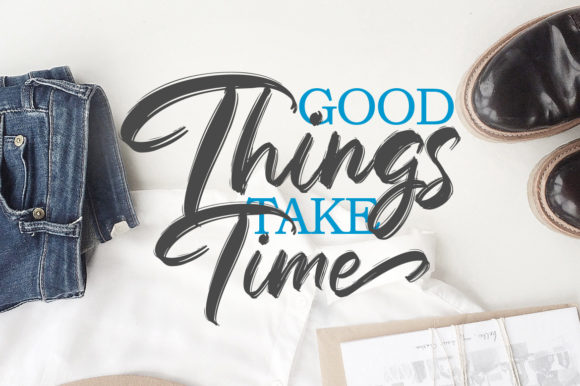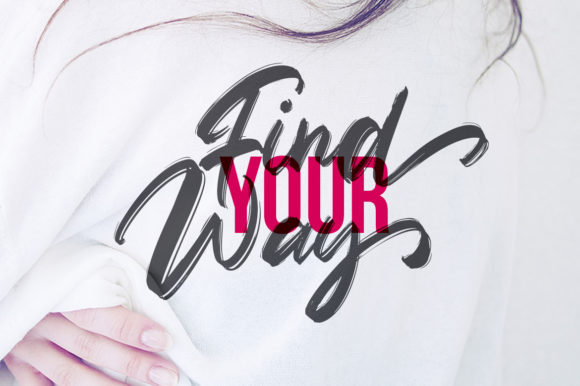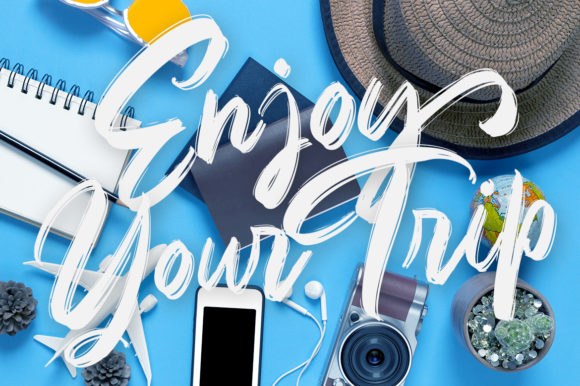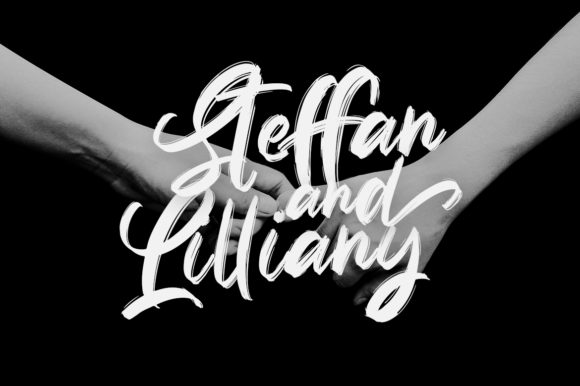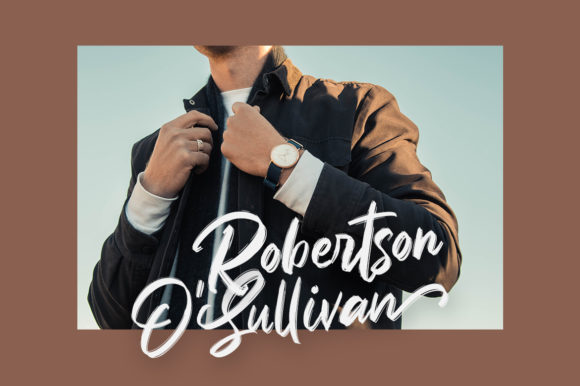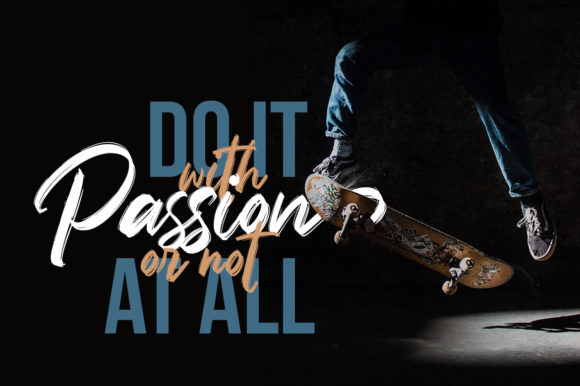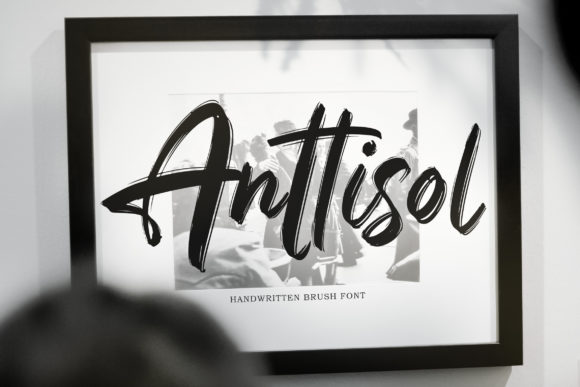
Introducing Anttisol Font: The Bold and Funky Handwritten Font with a Cool Charm
Are you tired of using the same old fonts in your designs? Do you want to add a touch of personality and whimsy to your projects? Look no further than Anttisol, a bold and funky handwritten font that’s sure to inspire. With its unique flavor and cool charm, Anttisol is the perfect addition to any designer’s toolkit.
The Story Behind Anttisol
Anttisol is more than just a font – it’s a statement. Its bold and funky design is sure to grab attention and make your designs stand out from the crowd. But what inspired the creation of Anttisol? The story behind this font is one of creativity and experimentation. The designers behind Anttisol wanted to create a font that was both playful and sophisticated, with a unique character that would add a touch of personality to any design.
Key Features of Anttisol Font
So, what makes Anttisol so special? Here are just a few of its key features:
• Bold and Funky Design: Anttisol is a bold and funky handwritten font that’s sure to make a statement. Its unique design is perfect for adding a touch of personality to your designs.
• Cool Charm: Anttisol has a cool charm that’s hard to resist. Its quirky character is sure to add a touch of whimsy to your designs.
• Handwritten Style: Anttisol is a handwritten font that’s perfect for adding a personal touch to your designs. Its unique character is sure to make your designs stand out from the crowd.
• Versatile: Anttisol is a versatile font that can be used in a variety of design projects, from posters and flyers to logos and branding.
Uses for Anttisol Font
So, what can you use Anttisol for? The possibilities are endless! Here are just a few ideas to get you started:
• Posters and Flyers: Anttisol is perfect for creating eye-catching posters and flyers that are sure to grab attention.
• Logos and Branding: Anttisol’s unique character makes it perfect for creating logos and branding that stand out from the crowd.
• Social Media Graphics: Anttisol is a great choice for creating social media graphics that are sure to grab attention.
• Invitations and Cards: Anttisol’s handwritten style makes it perfect for creating invitations and cards that are personal and unique.
Tips for Using Anttisol Font
Here are a few tips for using Anttisol font in your designs:
• Experiment with Different Sizes: Anttisol looks great in a variety of sizes, from small and subtle to large and bold.
• Pair with Other Fonts: Anttisol pairs well with a variety of other fonts, from serif and sans serif to script and decorative.
• Use in Combination with Images: Anttisol looks great in combination with images, from photographs to illustrations.
Anttisol is a bold and funky handwritten font with a cool charm that’s sure to inspire. With its unique flavor and versatile design, Anttisol is the perfect addition to any designer’s toolkit. Whether you’re creating posters and flyers, logos and branding, or social media graphics, Anttisol is sure to add a touch of personality and whimsy to your designs. So why not give Anttisol a try and see what amazing designs you can create?